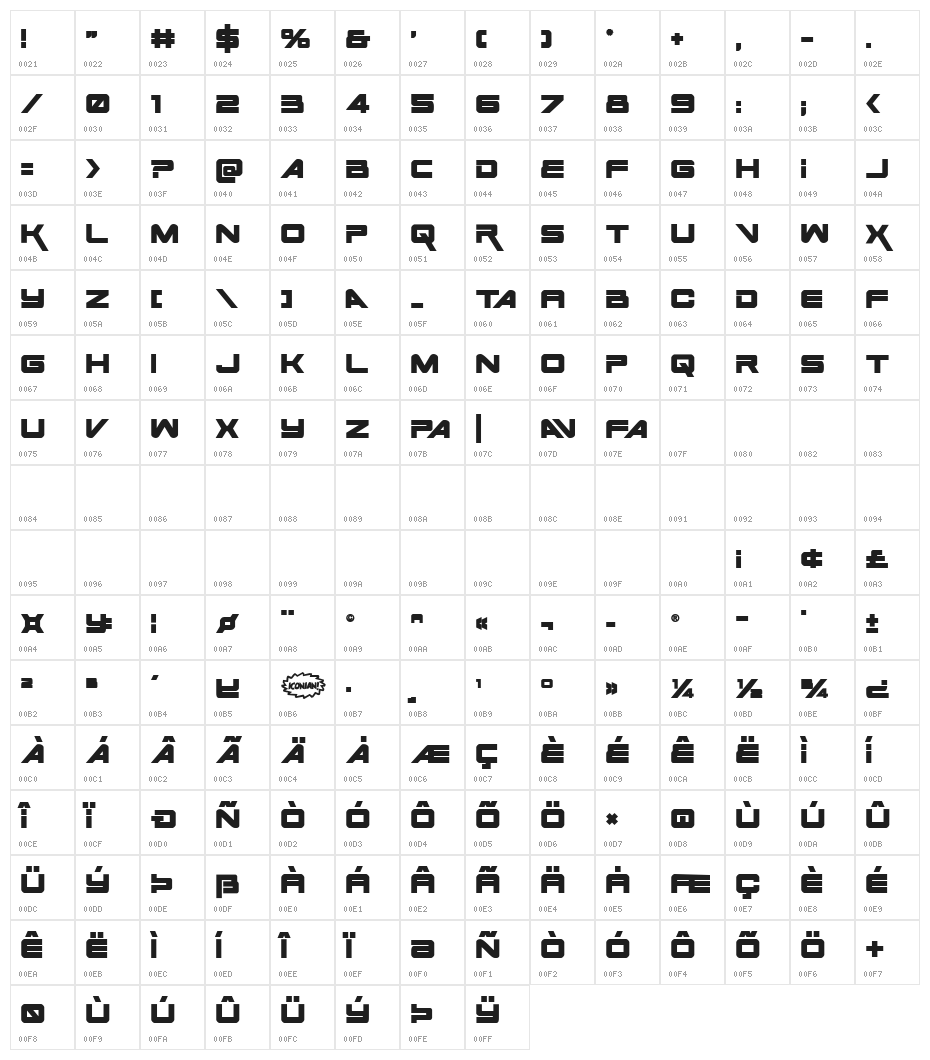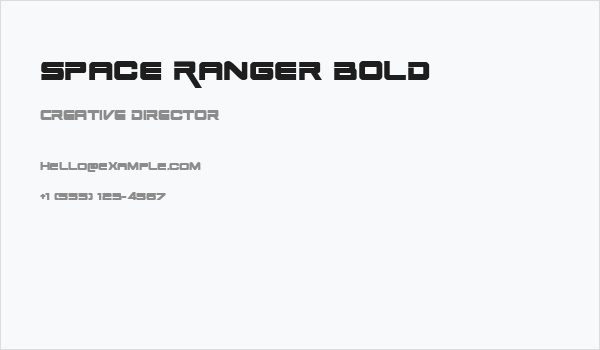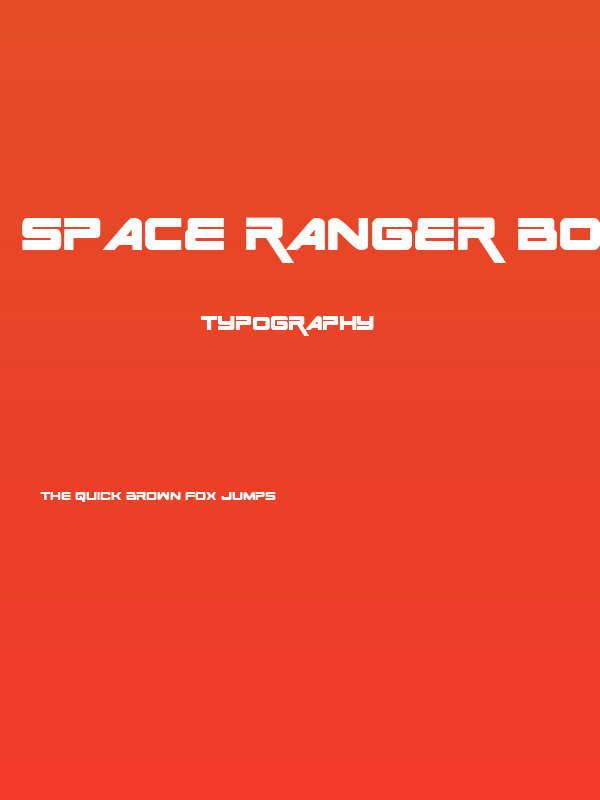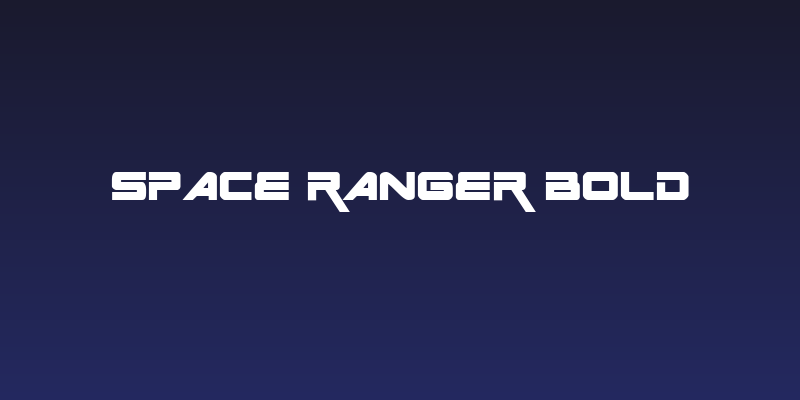
Space Ranger Bold Font
Space Ranger Bold Description
This font features a bold, futuristic design with sharp angles and a geometric structure. The uppercase and lowercase letters maintain a consistent width, creating a uniform appearance. The characters are designed with a strong presence, making them ideal for attention-grabbing headlines. The numbers and special characters follow the same bold and angular style, ensuring a cohesive look across all text elements. The font's modern aesthetic is well-suited for projects that require a contemporary and dynamic feel.
| Proposed Projects | Ideal for sci-fi themed designs, video game titles, tech branding, and futuristic posters. |